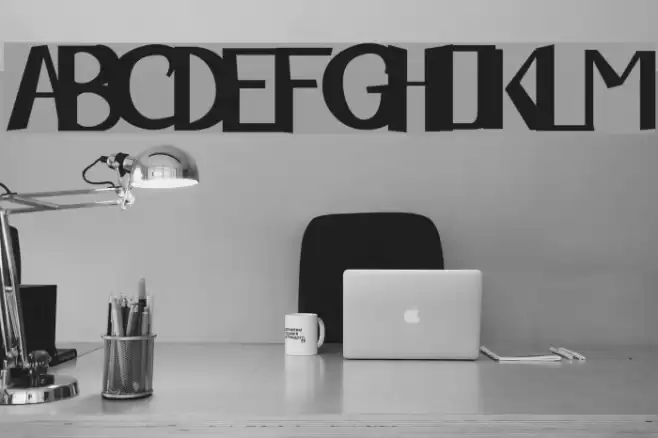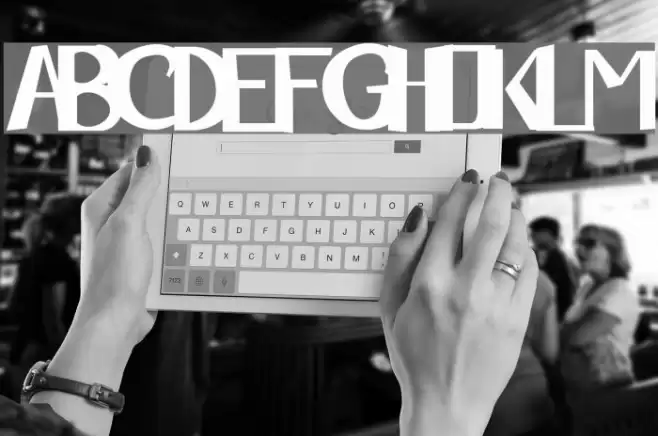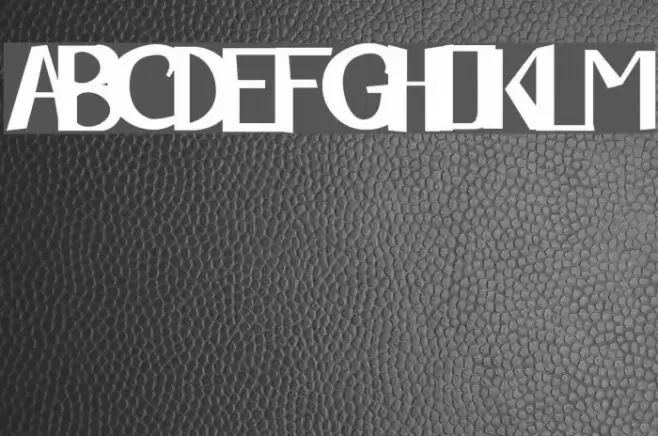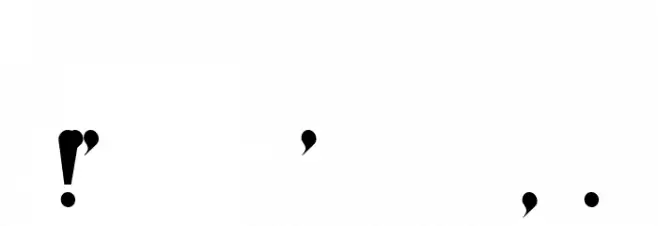
This font features a bold and striking design with a unique blend of geometric and organic shapes. The uppercase letters are characterized by strong, angular lines and a sense of movement, while the lowercase letters incorporate more fluid and curved elements. The overall appearance is dynamic and modern, with a playful yet sophisticated edge. The font's distinct style makes it stand out, with high contrast between thick and thin strokes, adding to its visual impact. The characters are tightly spaced, enhancing the boldness and making it suitable for attention-grabbing headlines or logos.
A bold, modern font with geometric and organic elements, ideal for striking headlines from Uncategorized fonts.
- Proposed Projects: This font is perfect for branding projects, logo design, poster headlines, and any creative work that requires a bold statement.
- Character Spacing: Tight